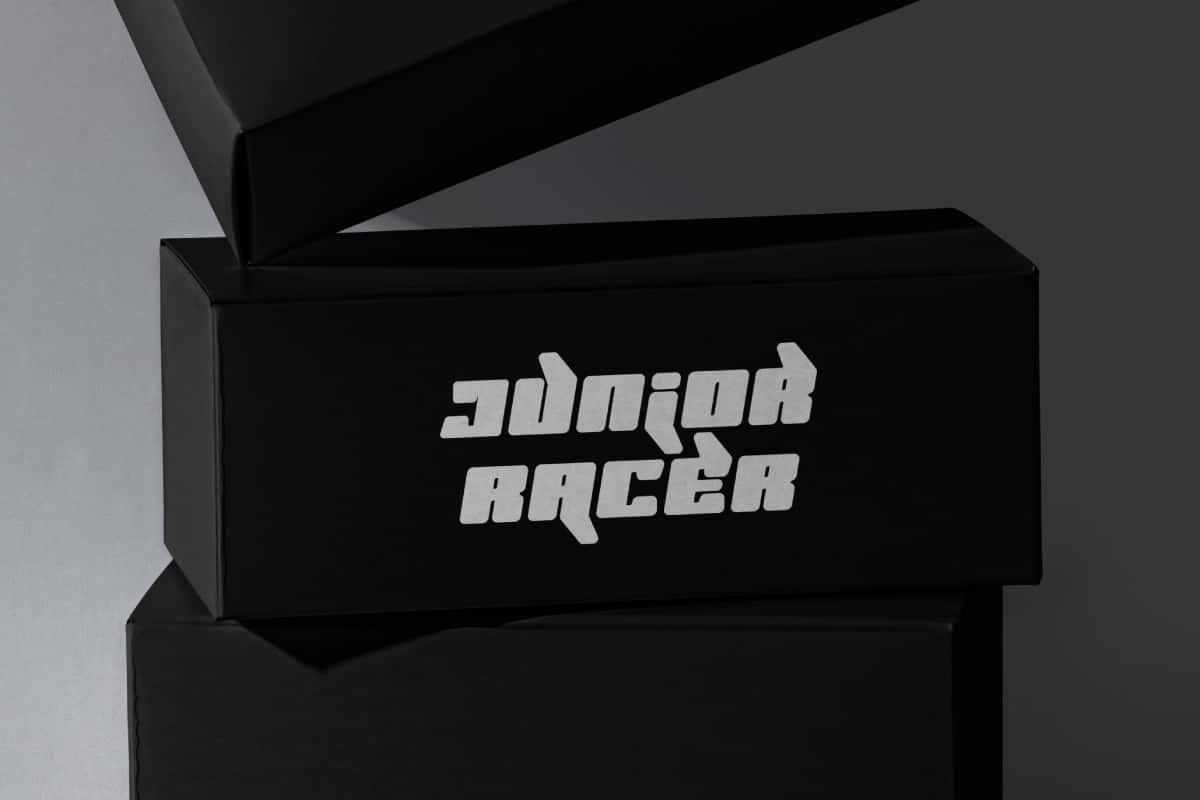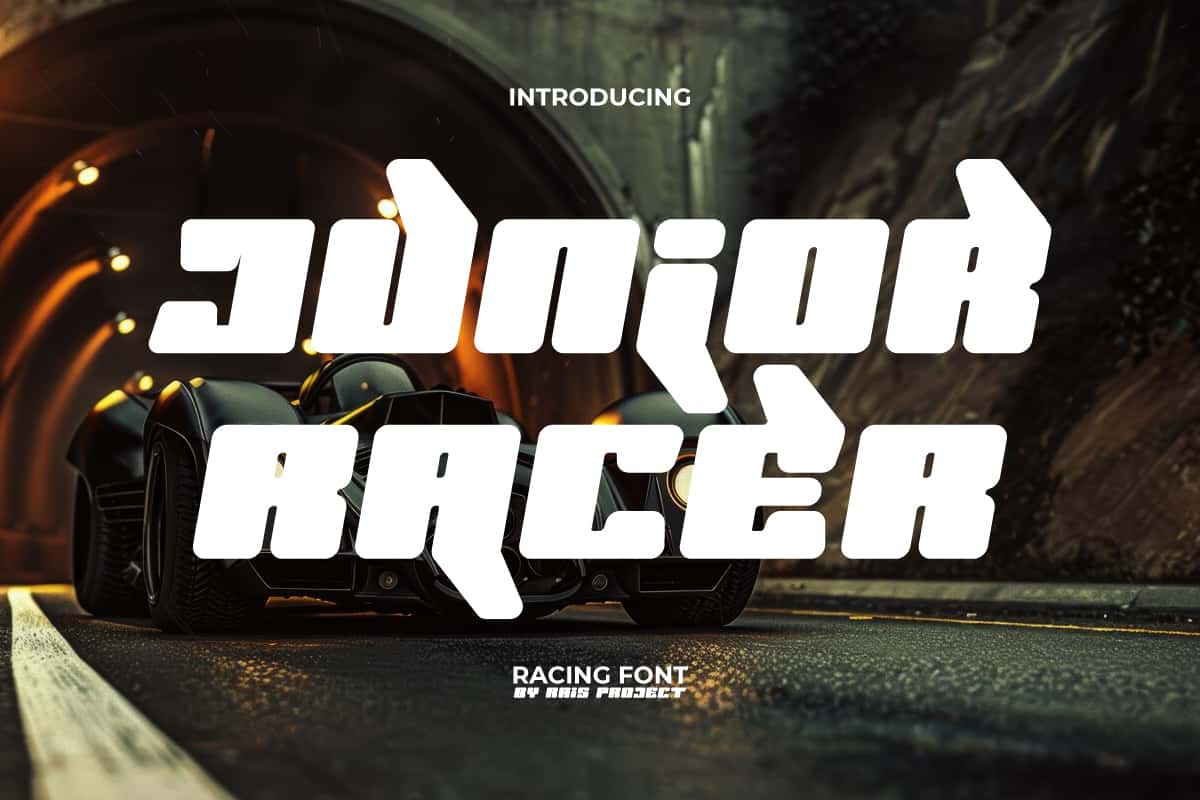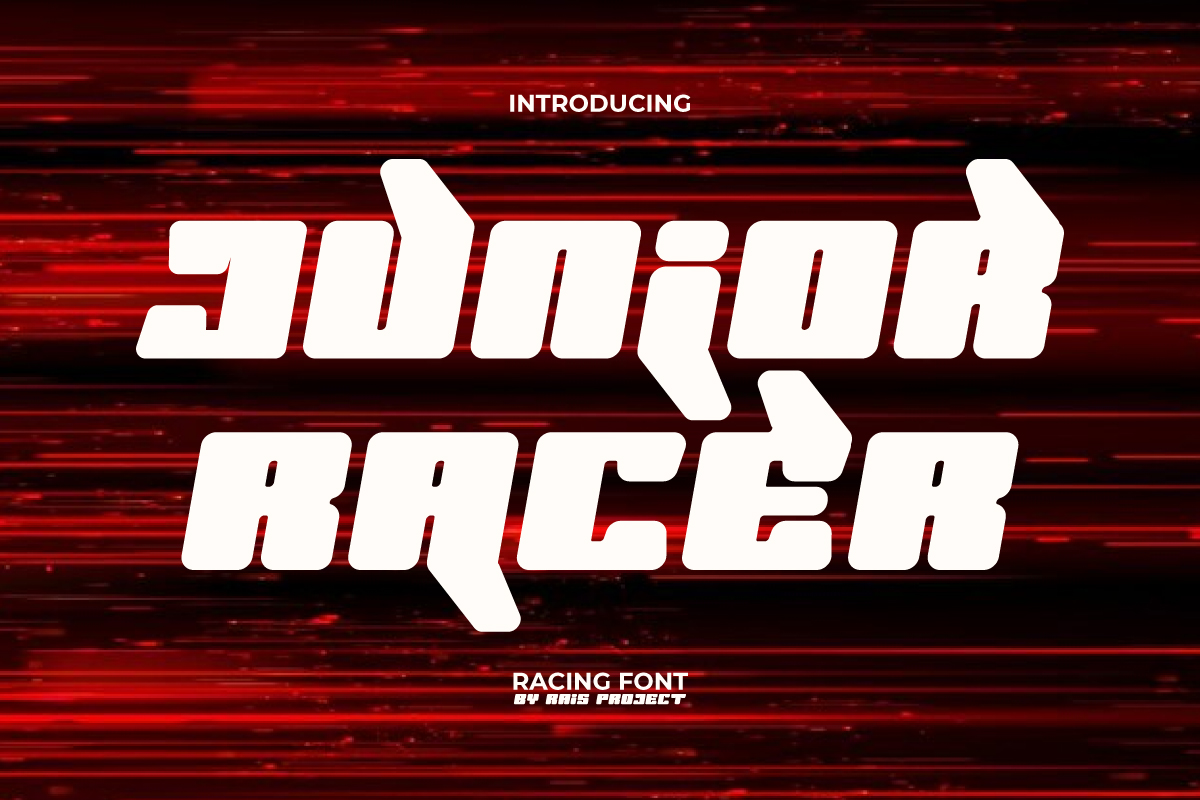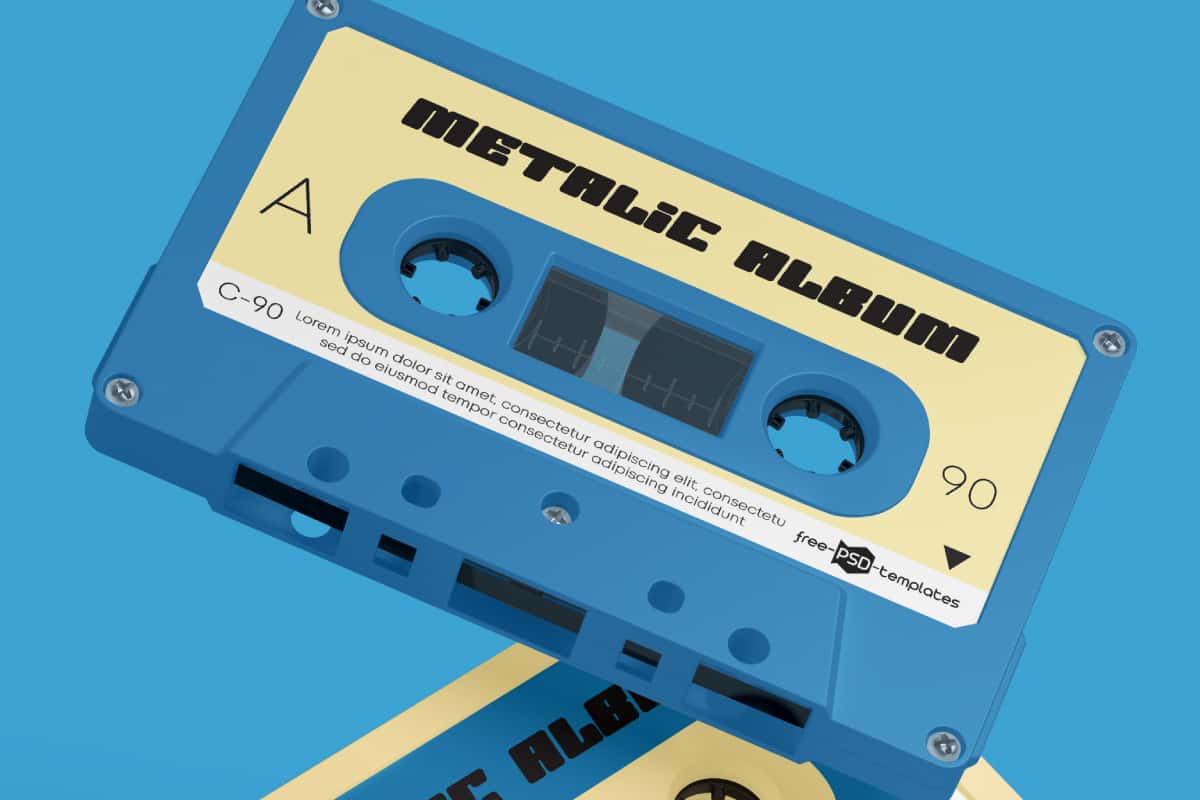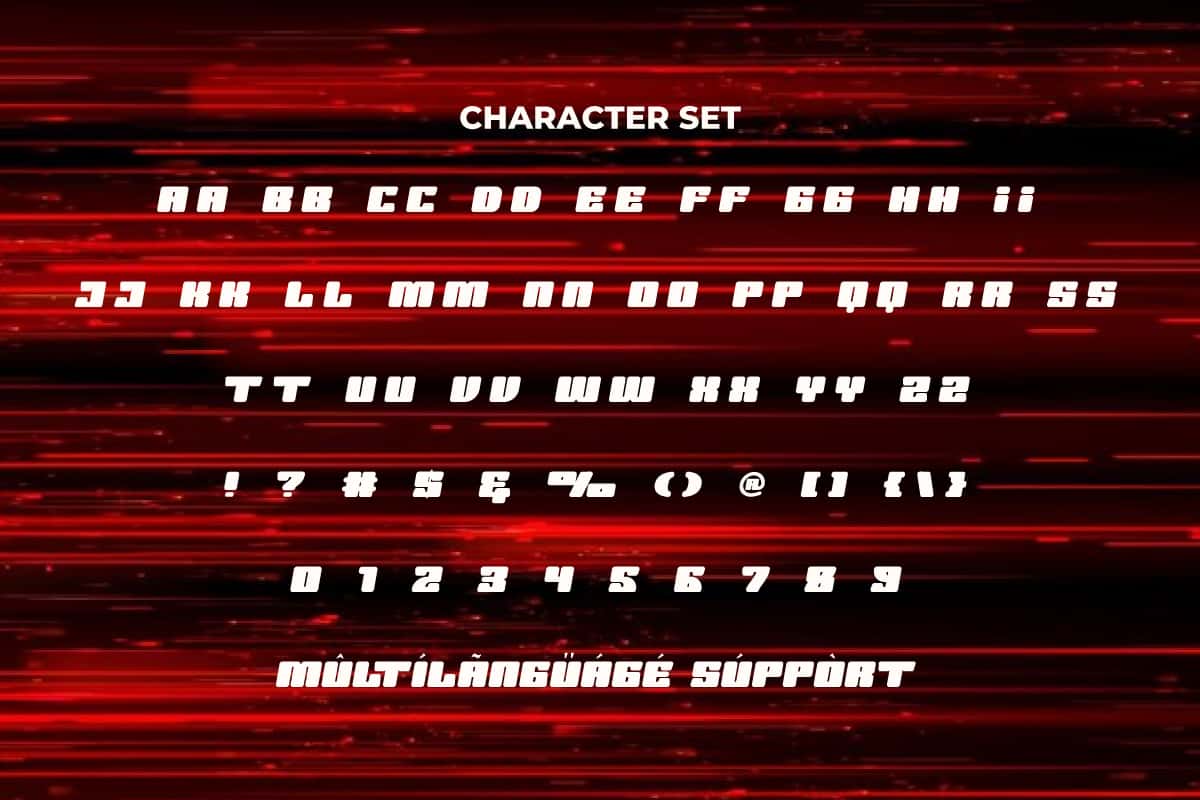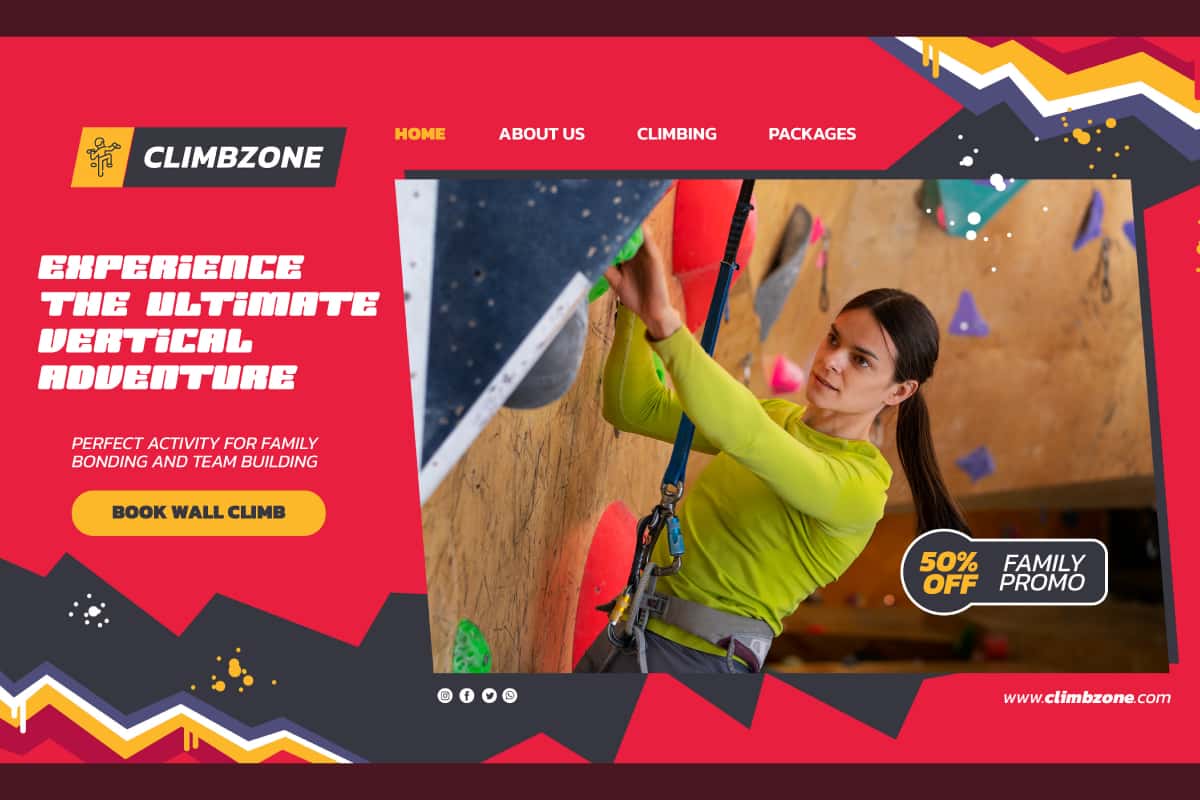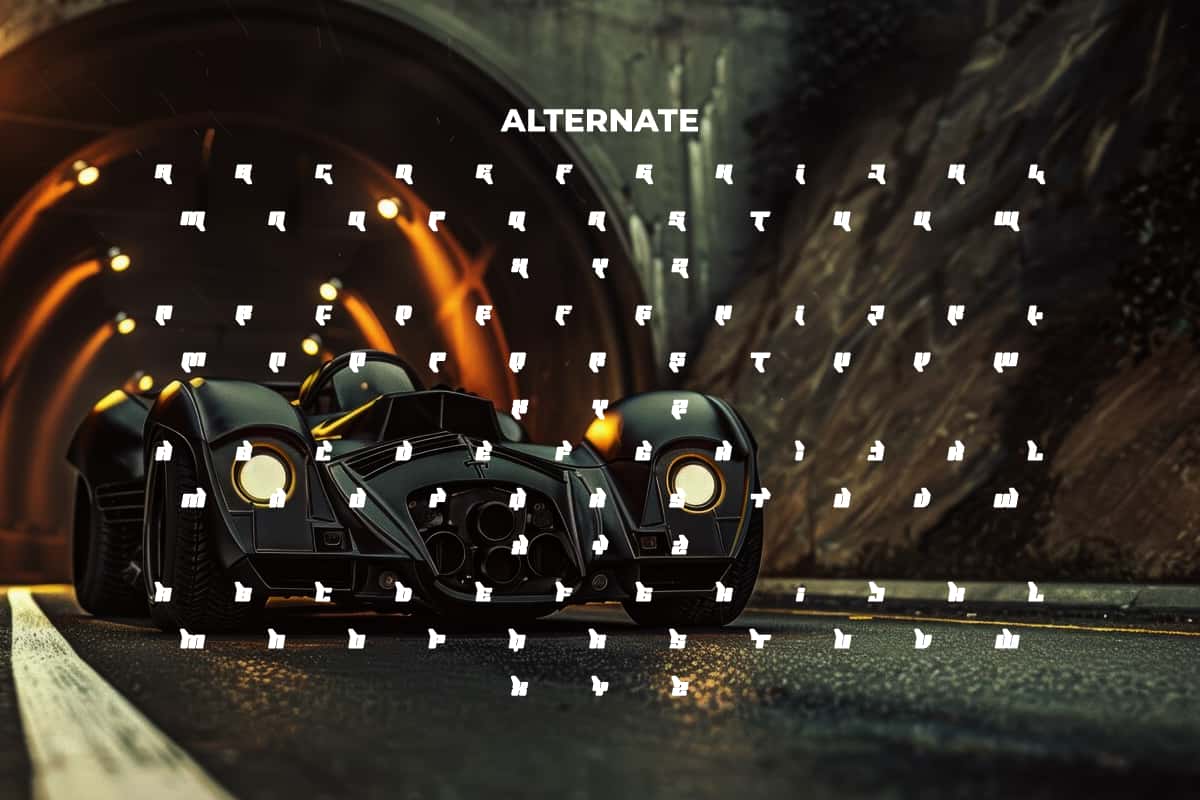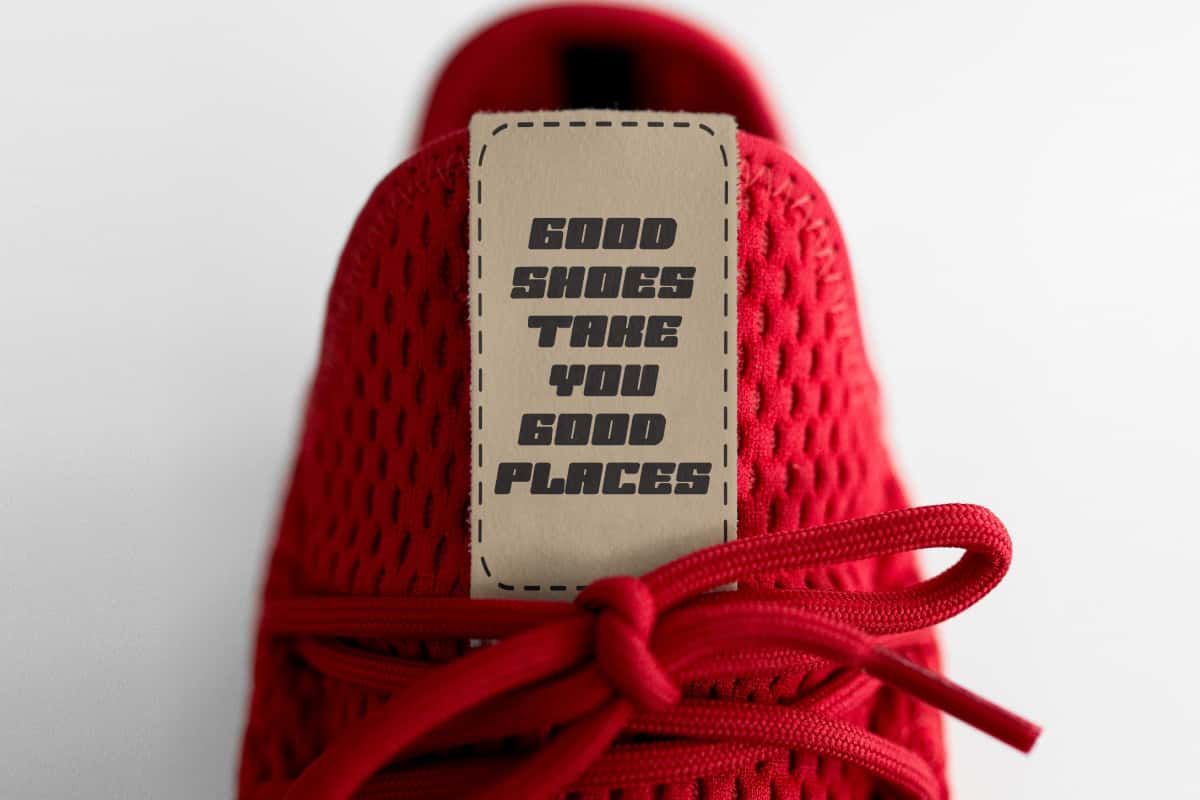
Junior Racer Font
Junior Racer Font is a unique font for your designs with a gaming or racing theme!
Junior Racer Font is a unique font that can convey an impressive modern charm, by RaisProject. This font has its own characteristics and uniqueness to make it stand out in every design created. It will be great for poster, label, signage, stationery, custom design, product packaging, quotes, brand image, advertisement, invitation, marketing material, website page, and more!
Junior Racer Font includes a full set of ALL CAPS for Uppercase and Lowercase Letters, Numerals, large range of Punctuation, and Alternate character. This modern font will be suitable for various industries, such as sports, automotive, fashion, game, barber shop, cafe, event or festival, photography, printing, publishing, etc.